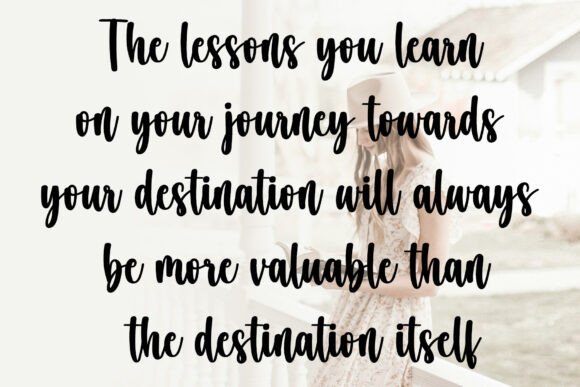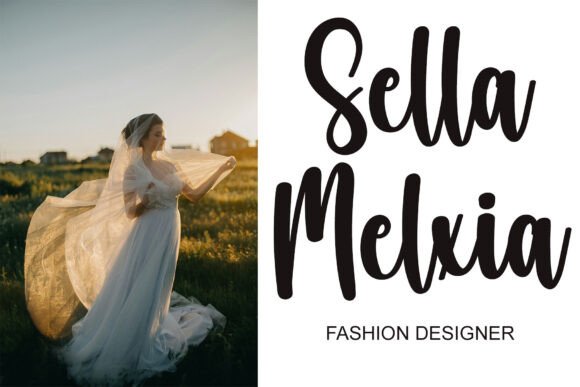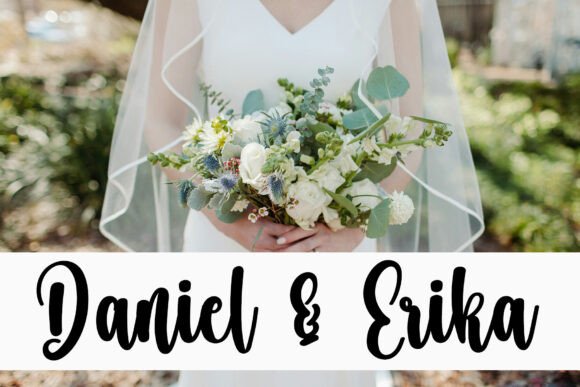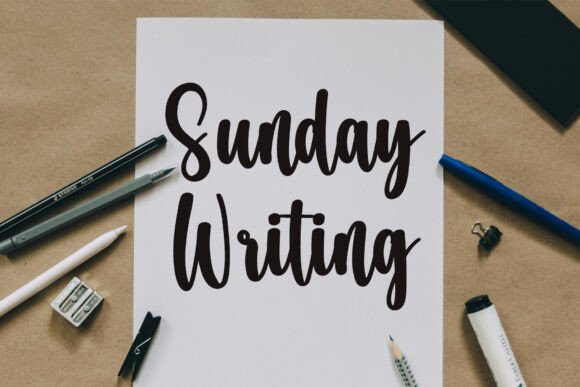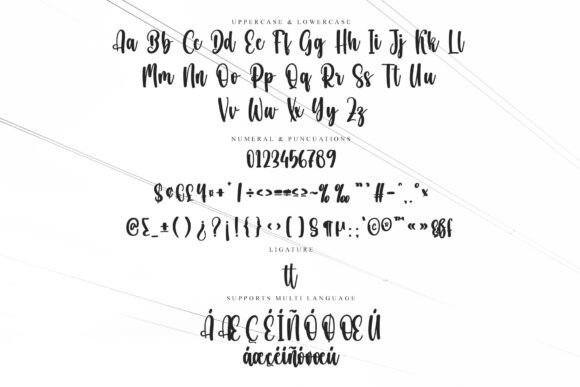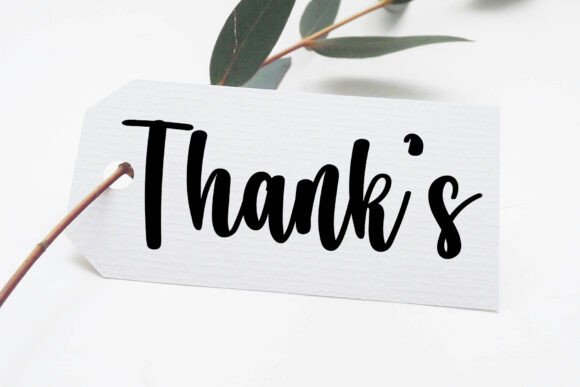
Babyish Font: Add a Touch of Elegance to Your Designs
Are you a designer or crafter looking for a font that can add a touch of elegance to your creative projects? Look no further than the Babyish Font! This magical handwritten font is carefully crafted to bring a sense of sophistication and refinement to your designs, making it perfect for a wide range of applications.
What is Babyish Font?
Babyish is a beautiful, handwritten font that is designed to give your designs a touch of elegance. With its flowing script and delicate lines, this font is perfect for creating stunning visual content that stands out from the crowd. Whether you’re looking for fonts for Instagram, calligraphy scripts for DIY projects, or simply want to add a personal touch to your digital designs, Babyish Font is the perfect choice.
Key Features of Babyish Font
- Handwritten script: Babyish Font features a beautiful, handwritten script that is both elegant and refined.
- Magical feel: This font has a magical quality that makes it perfect for creating whimsical and eye-catching designs.
- Elegant lines: The delicate lines and curves of Babyish Font give it a sophisticated and refined feel.
- Versatile: This font can be used for a wide range of applications, from Instagram posts to DIY projects and digital designs.
Why Choose Babyish Font?
So why choose Babyish Font over other fonts? Here are just a few reasons why this font stands out:
- Unique and eye-catching: Babyish Font is a one-of-a-kind font that will add a touch of elegance and sophistication to your designs.
- Easy to read: Despite its elegant script, Babyish Font is easy to read and understand, making it perfect for use in a wide range of applications.
- Customizable: This font can be customized to suit your needs, allowing you to adjust the size, color, and style to fit your design.
Uses for Babyish Font
Babyish Font is a versatile font that can be used for a wide range of applications, including:
- Instagram posts: Add a touch of elegance to your Instagram posts with Babyish Font.
- DIY projects: Use Babyish Font to create beautiful calligraphy scripts for your DIY projects.
- Digital designs: Add a personal touch to your digital designs with Babyish Font.
- Stationery and invitations: Use Babyish Font to create beautiful stationery and invitations.
Tips for Using Babyish Font
Here are a few tips for using Babyish Font:
- Use it sparingly: Babyish Font is a elegant font, so use it sparingly to add a touch of sophistication to your designs.
- Pair it with other fonts: Pair Babyish Font with other fonts to create a unique and eye-catching design.
- Experiment with colors: Experiment with different colors to find the perfect combination for your design.
In conclusion, Babyish Font is a magical handwritten font that can add a touch of elegance to your designs. With its flowing script and delicate lines, this font is perfect for creating stunning visual content that stands out from the crowd. Whether you’re a designer or crafter, Babyish Font is a great choice for anyone looking to add a personal touch to their creative projects.